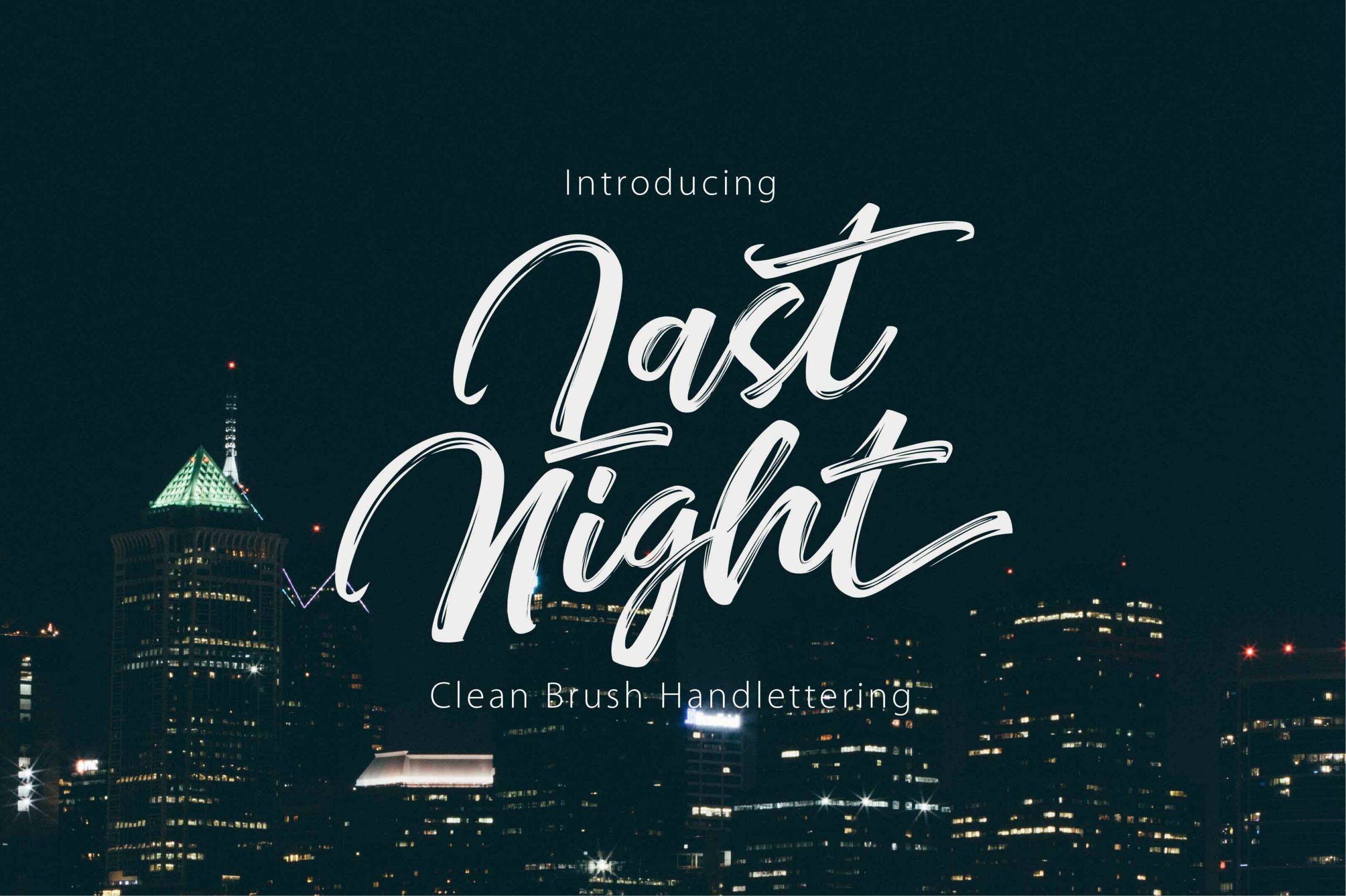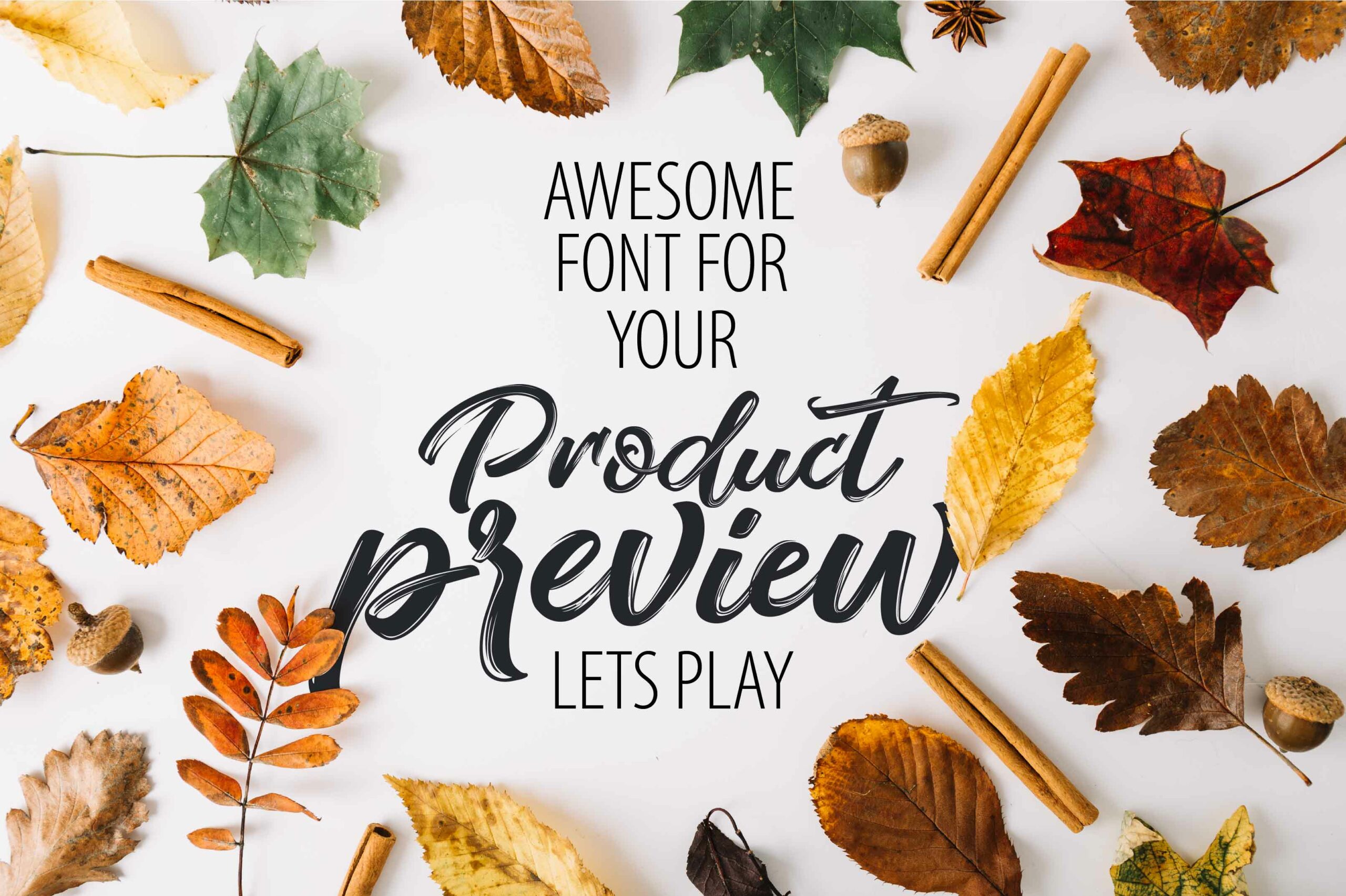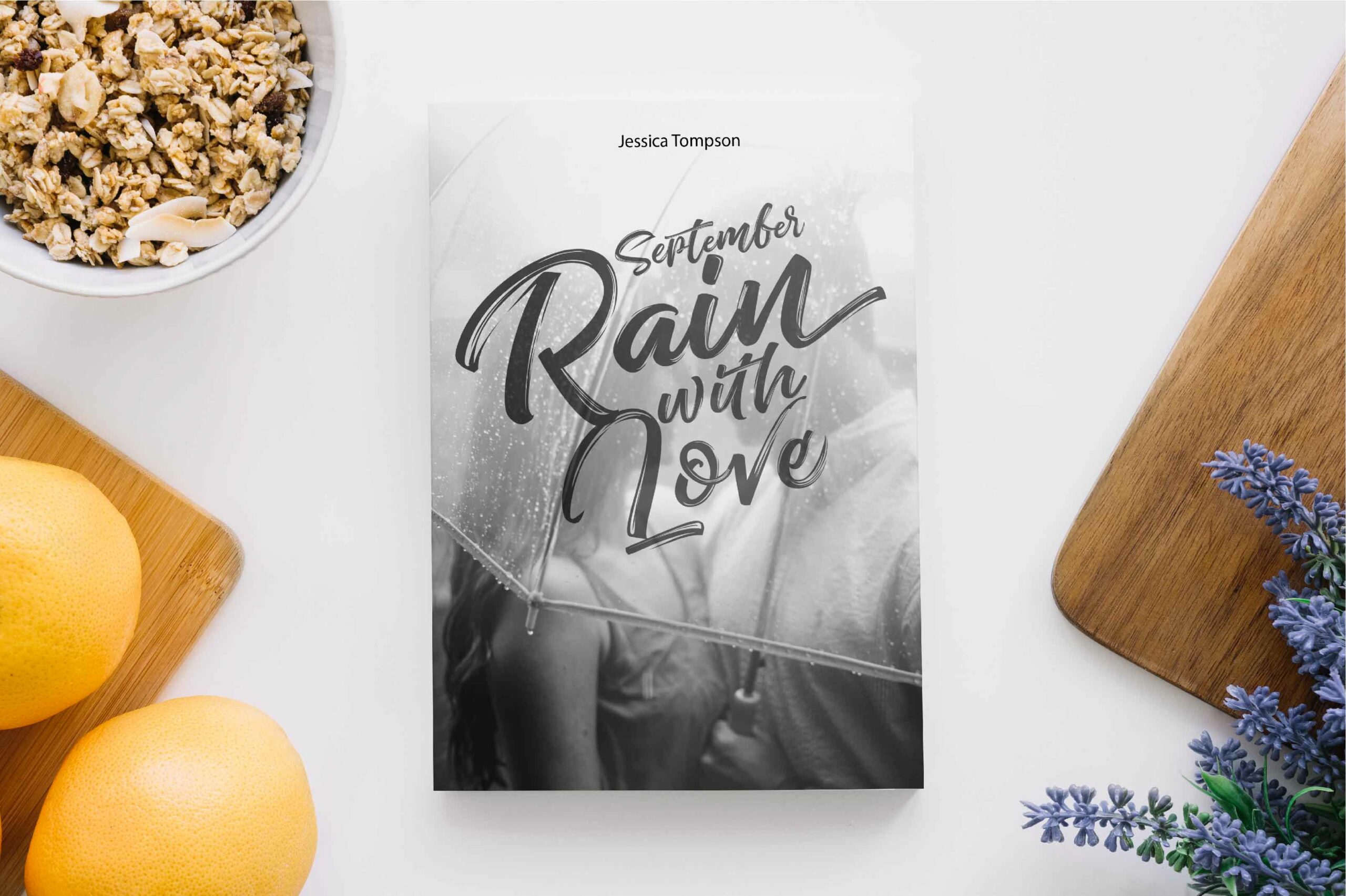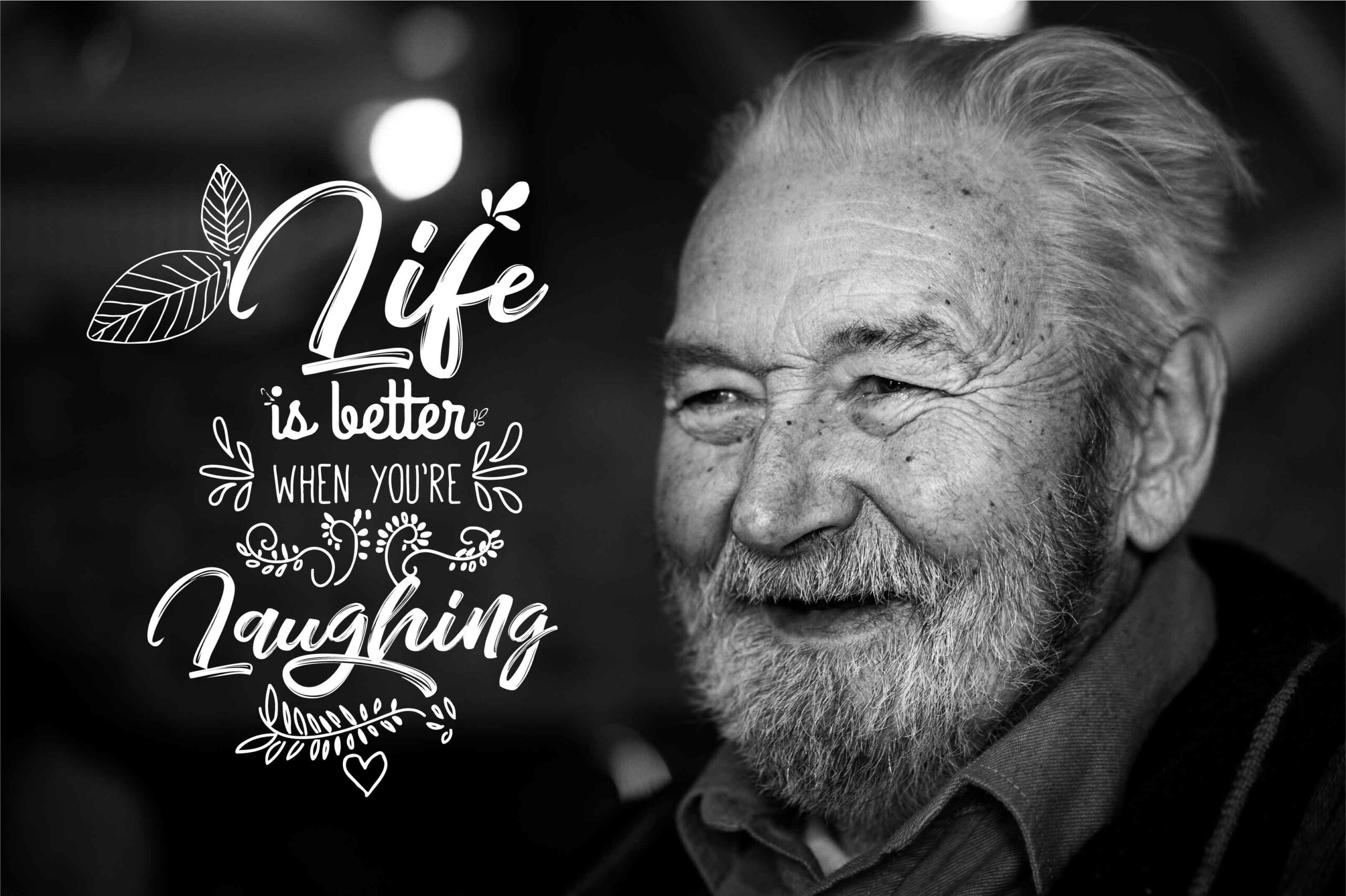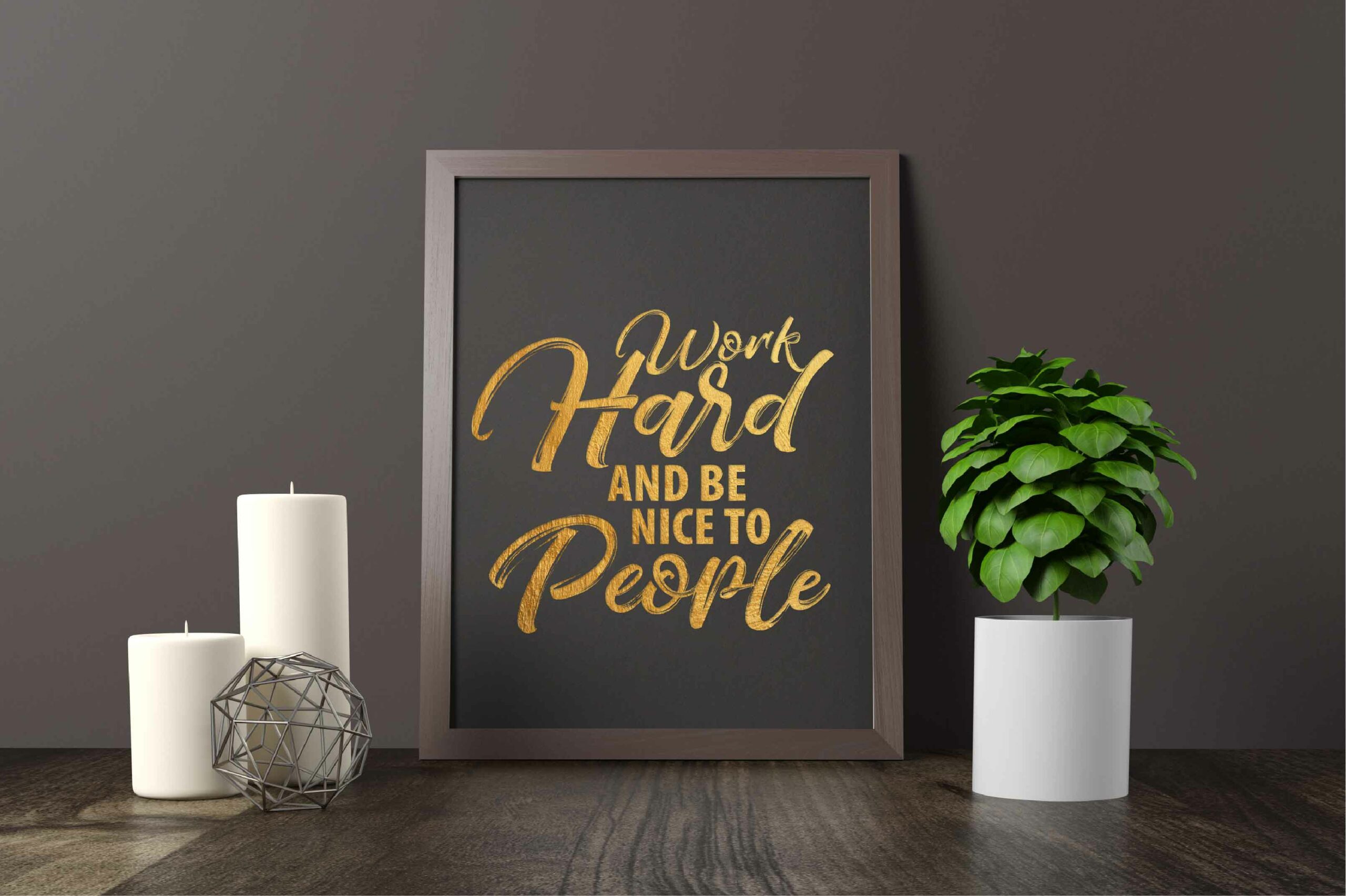
Last Night Font
About Last Night Font
Last Night is the definition of beautiful hand-lettering. This font bears no pretense; it is casual yet lovely, and can be utilized to add some somatic appeal to designs or projects.
Add Last Night, a lovely brush script, to your font collection.